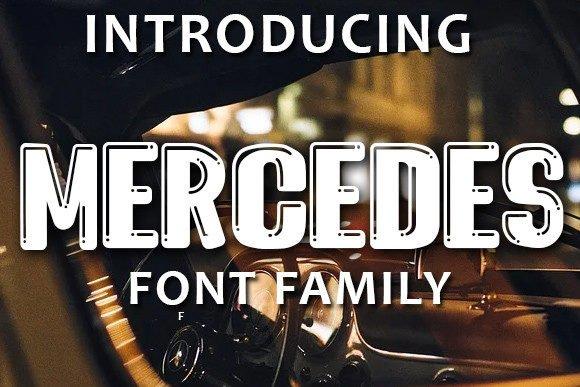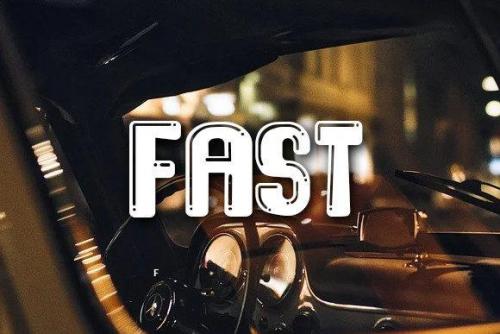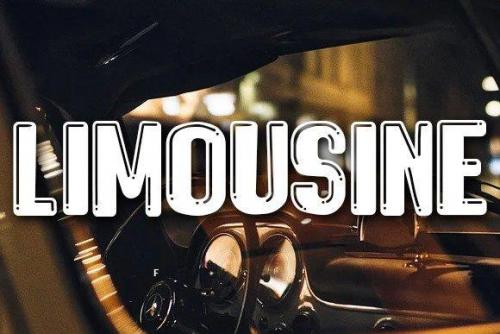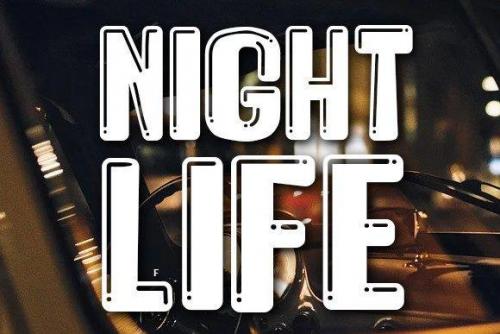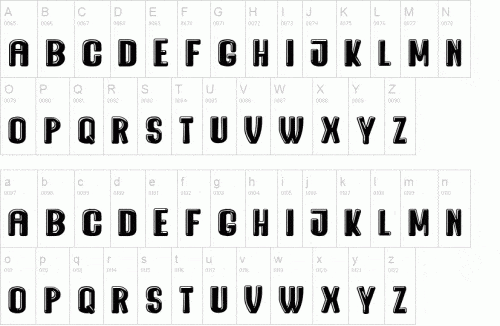
Mercedes is a cool, bubbly display font. It will look stunning on any poster flyer or print. Use this font for your designs and explore its endless possibilities.